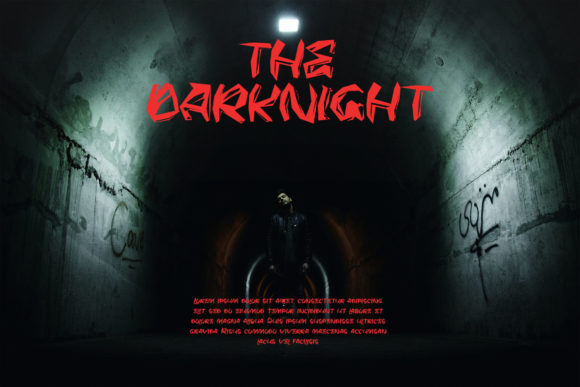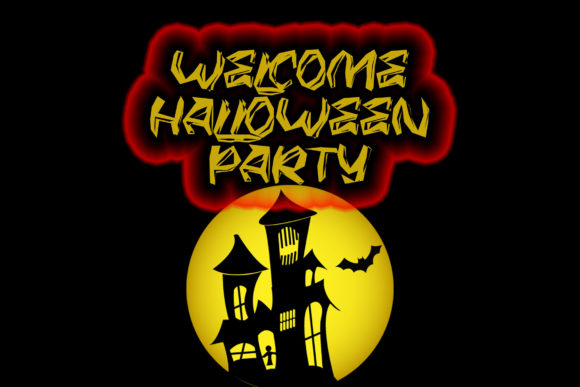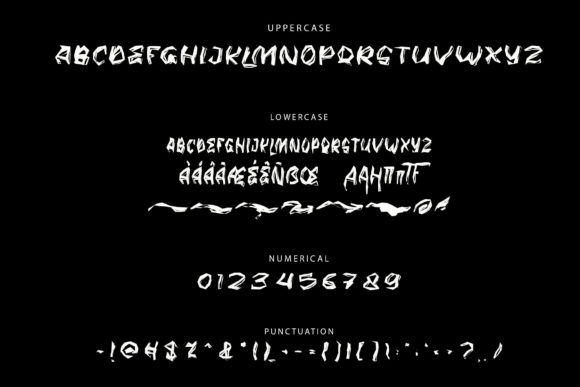
Introduction to Hiseris Font
Do you remember that moment when you’re brainstorming ideas for a creative project, and suddenly, a spark of inspiration hits you? You envision a hauntingly beautiful design that sends chills down the spine. For designers like you, this is what Hiseris Font is all about – unleashing your creativity and bringing your dark, bold visions to life.
As a free download with a transparent background, Hiseris Font is a high-quality design resource that’s perfect for adding a touch of eeriness to your Halloween crafts, horror movie posters, or even t-shirts. Its cool, bold, and creepy look is sure to captivate your audience and leave a lasting impression.
With Hiseris Font, you’ll have endless possibilities to experiment and push the boundaries of your design skills. Whether you’re a seasoned pro or just starting out, this versatile font is a valuable addition to your design arsenal, waiting to be unleashed on your next creative project.
Key Features of Hiseris Font
- High-quality design for creative projects: Hiseris Font is a well-crafted typeface suitable for various design applications, including branding, advertising, and editorial content.
- Multi-language support: Hiseris Font supports a wide range of languages, including Latin, Cyrillic, and Greek alphabets, making it a versatile design resource.
- Regular and italic styles: The font includes both regular and italic styles, providing designers with flexibility and options for creative expression.
Honest Review: Hiseris Font
I recently stumbled upon the Hiseris Font, and I must say, it’s a great addition to any designer’s toolkit. This free download has been a game-changer for my creative projects, offering a unique and stylish font that’s perfect for various design applications.
Here are some of the things that work well for me with the Hiseris Font:
- ✨ High quality: The font is incredibly crisp and clear, making it perfect for both digital and print designs.
- ✨ Transparent background: The transparent background allows for seamless integration with other design elements, giving me more flexibility in my creative project.
- ✨ Design resource: The Hiseris Font is a great resource for designers who are looking for a unique and stylish font without breaking the bank.
- ⚠️ Limited language support: The font only supports a limited number of languages, which may be a concern for designers who need to work with multiple languages.
- ⚠️ Limited customization options: While the font is highly customizable, there are limited options available for fine-tuning the font’s appearance.
Overall, I’m really impressed with the Hiseris Font. It’s a high-quality, free download that’s perfect for designers who are looking for a unique and stylish font for their creative projects. While it has some limitations, the benefits far outweigh the drawbacks, making it a valuable addition to any designer’s toolkit.
Hiseris Font
Tips for Getting the Most Out of the Hiseris Font
To get the most out of the Hiseris Font, consider the following tips: Use the font in conjunction with a high-quality design resource, such as a transparent background, to create a professional-looking design. Experiment with different font sizes and styles to create visual interest. Consider using the font in a creative project, such as a logo or infographic, to add a touch of elegance and sophistication.